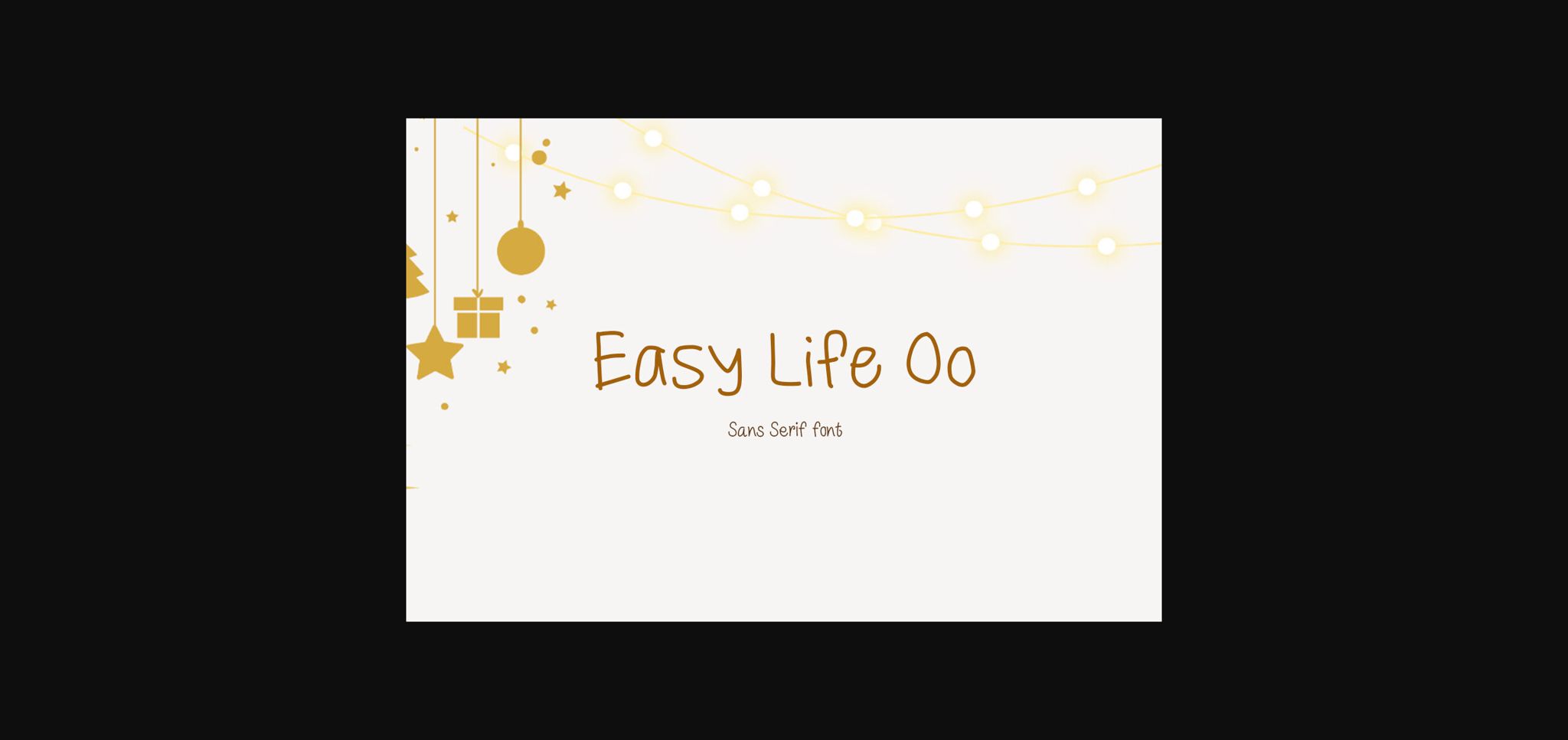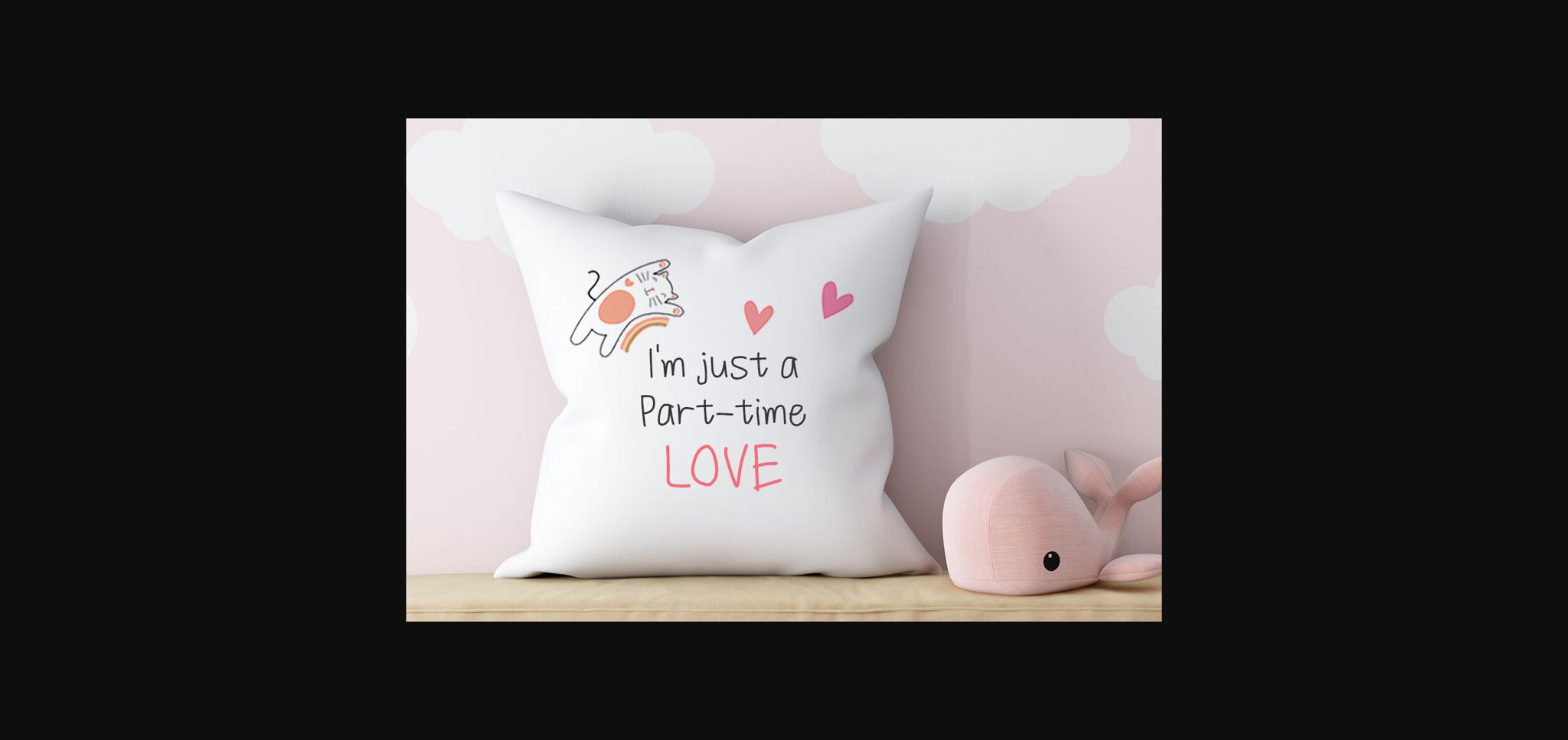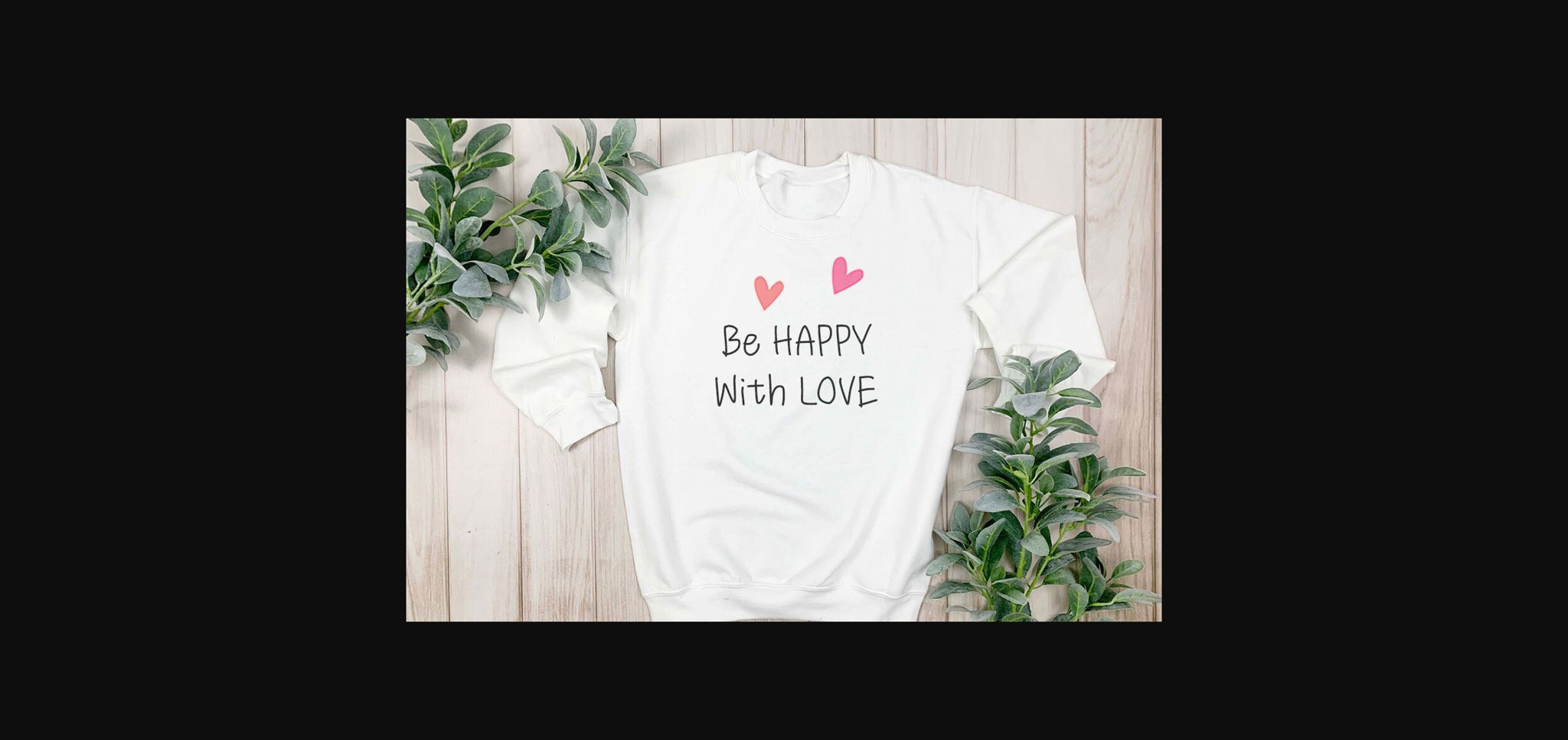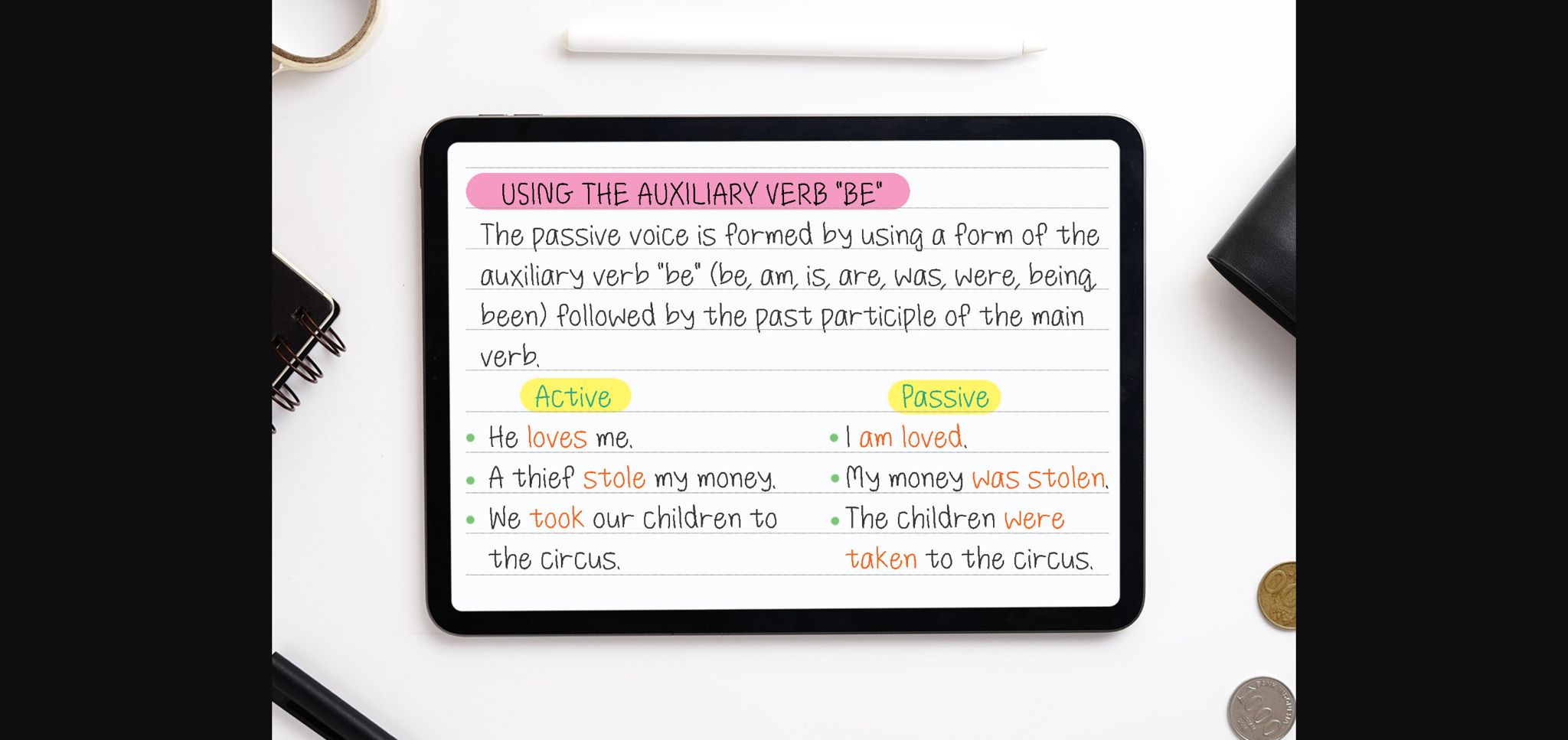
About Easy Life Oo Font
Easy Life Oo is a playful, cushy and whimsical handwritten font. Its informal style and casual vibe make it awesome for your fun projects or diary planners, thank you cards, quotes, greeting cards, logos, posters, blogs, bags, and more!